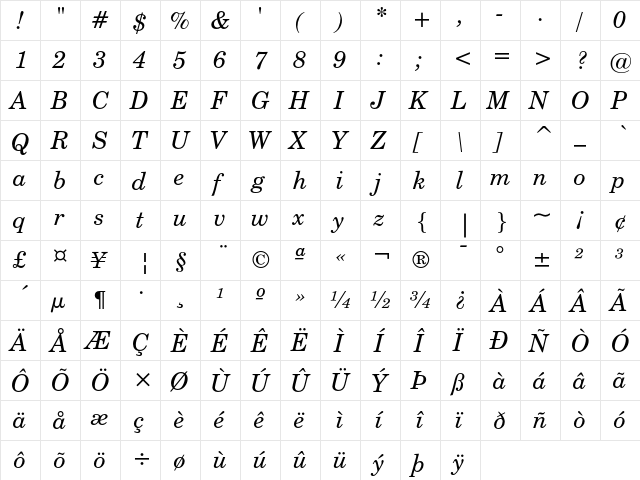
Century Schoolbook Italic
Design Context for Century Schoolbook Typeface
Century Schoolbook is a composed and adaptable typeface that performs quietly and consistently across a wide range of design contexts. Its italic angle brings a sense of urgency and motion to the letterforms.
Pro Tip: Use Century Schoolbook for emphasis, pull quotes, and subheadings where its slanted energy can add rhythm to the layout.